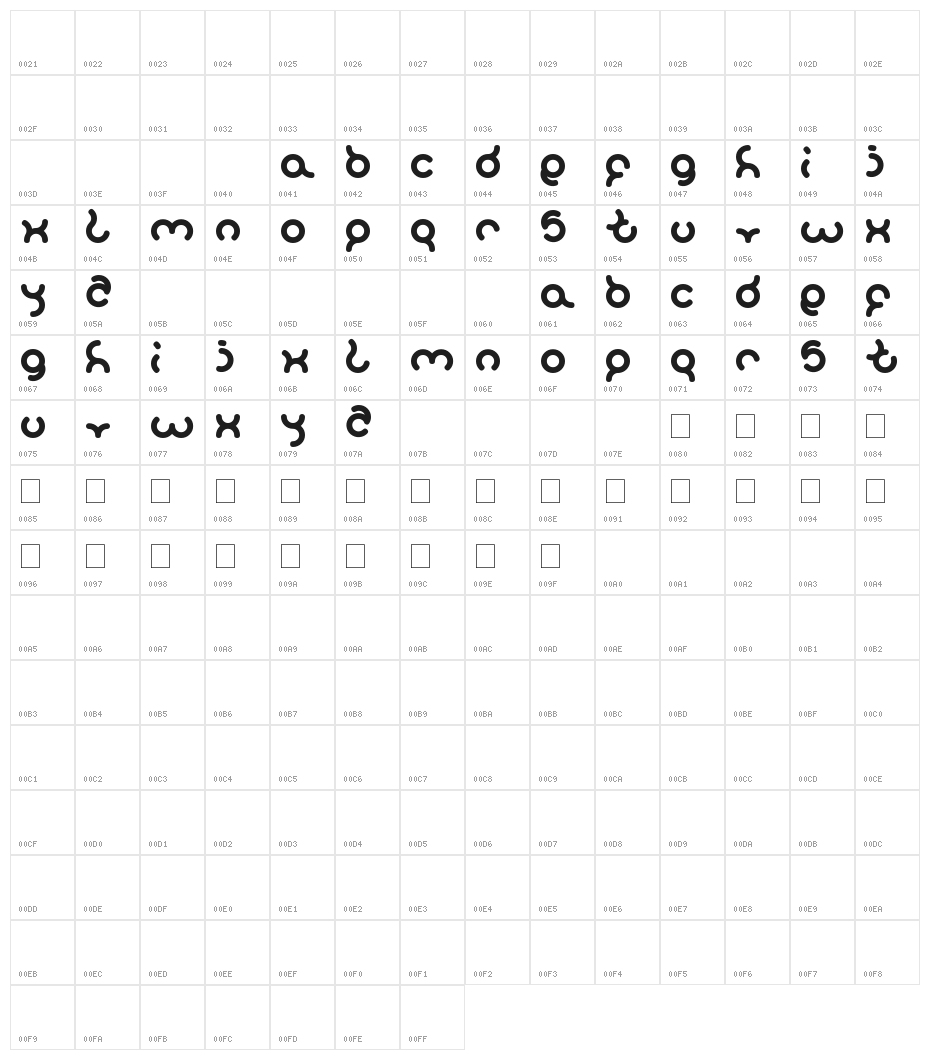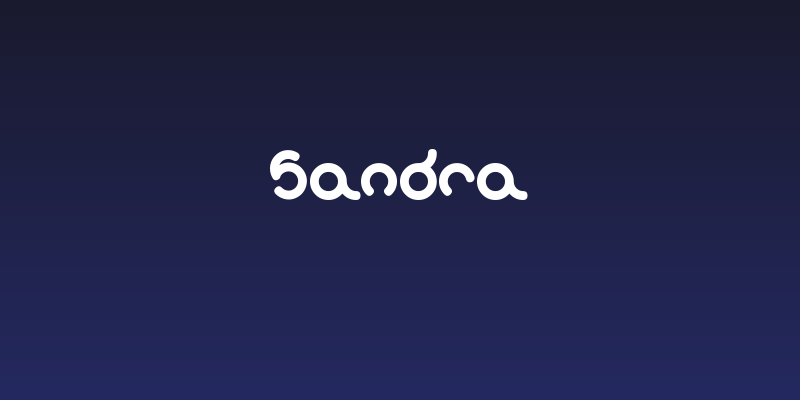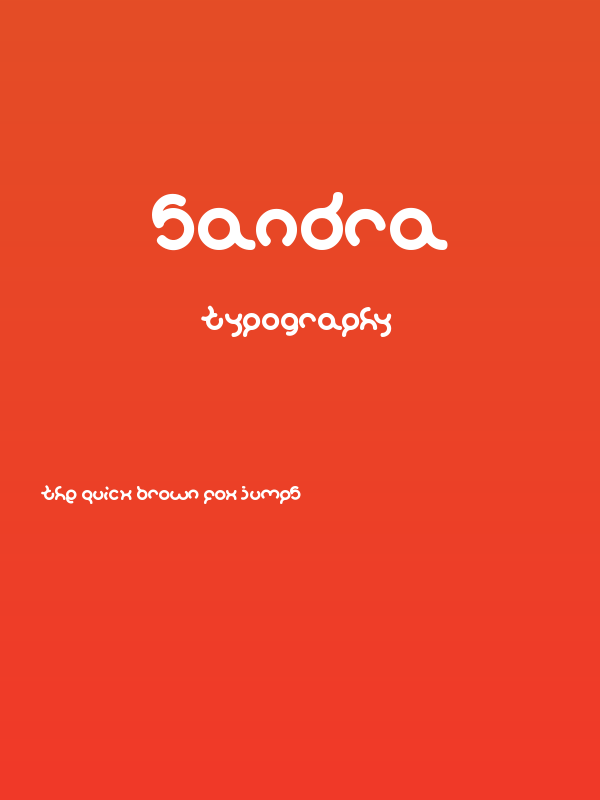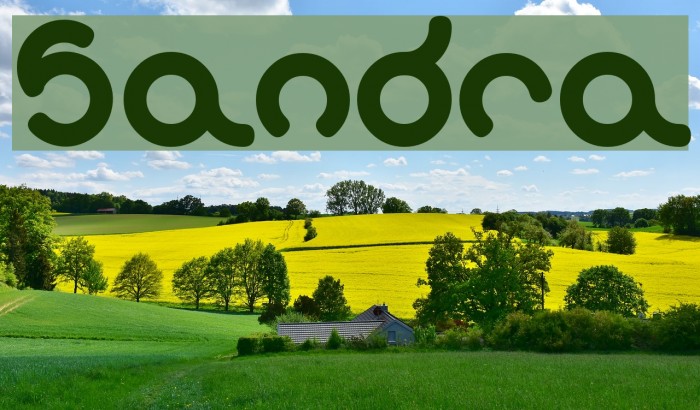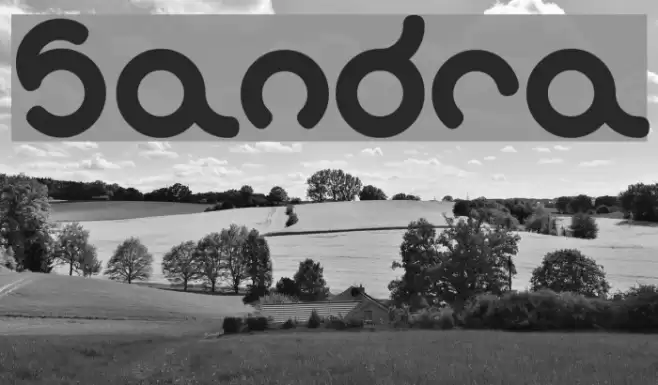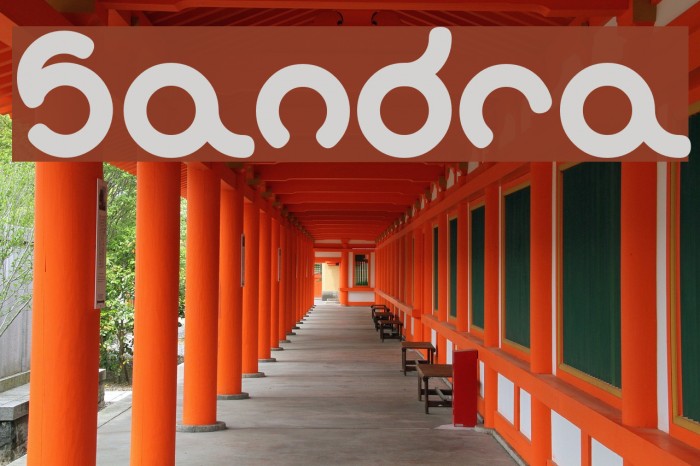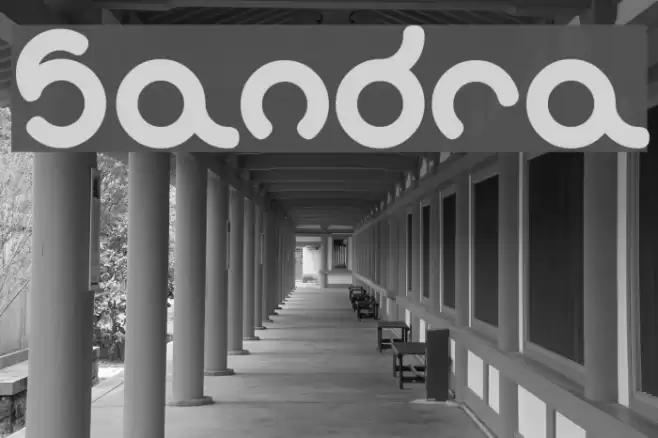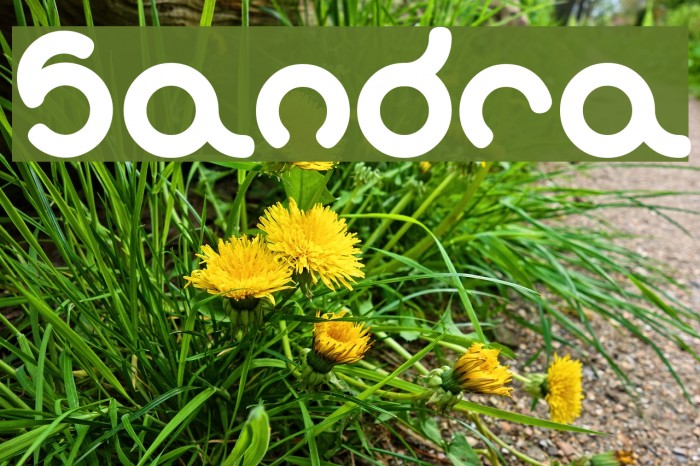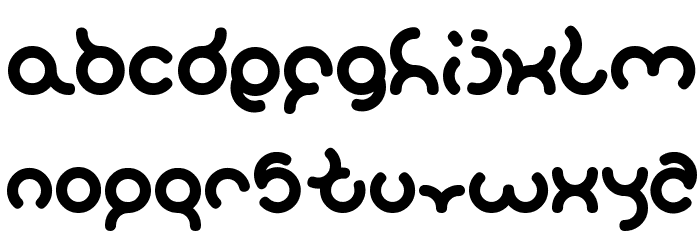
sandra Font
sandra Description
This font features a playful and whimsical design, characterized by its bold, rounded shapes and smooth curves. Each letter is crafted with a consistent thickness, creating a harmonious and unified appearance. The font's unique style is reminiscent of a retro or vintage aesthetic, yet it maintains a modern flair. The characters are evenly spaced, ensuring readability while adding a touch of personality to any text. Its distinctive look makes it suitable for creative projects that require a fun and engaging typeface.
| Overall Style | Playful, Retro, Modern |
| Proposed Projects | Ideal for children's books, playful branding, posters, and creative invitations. |